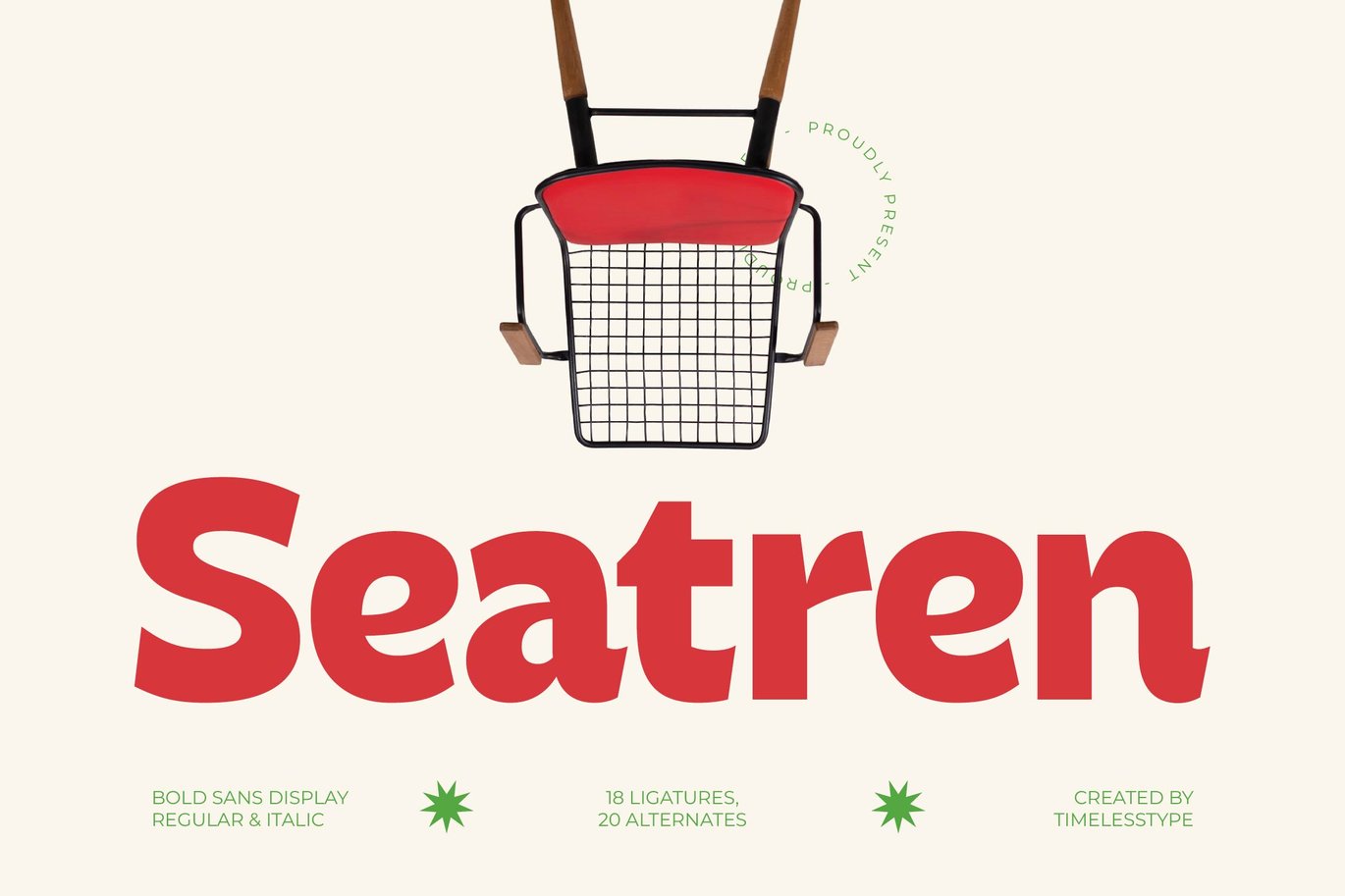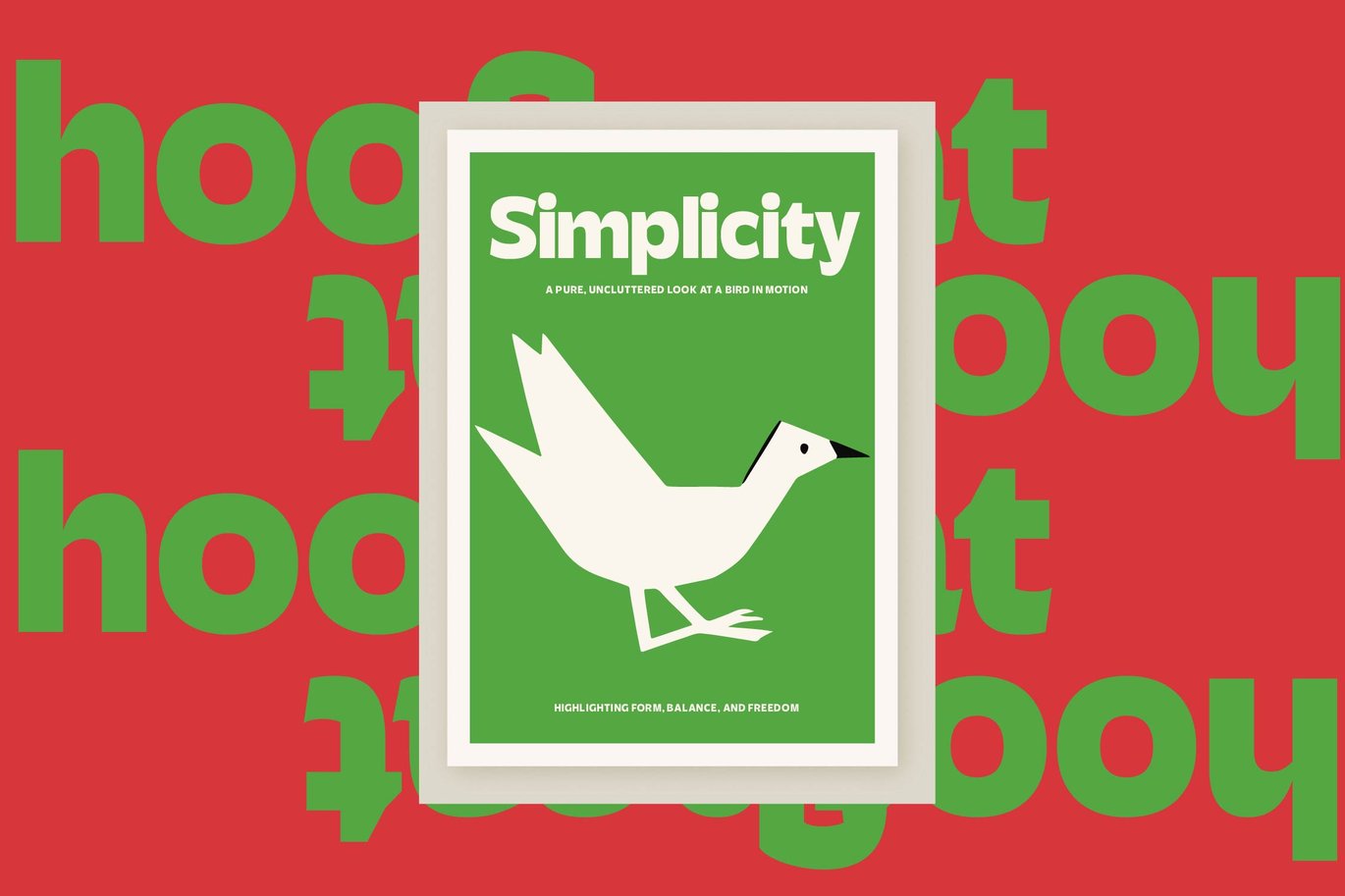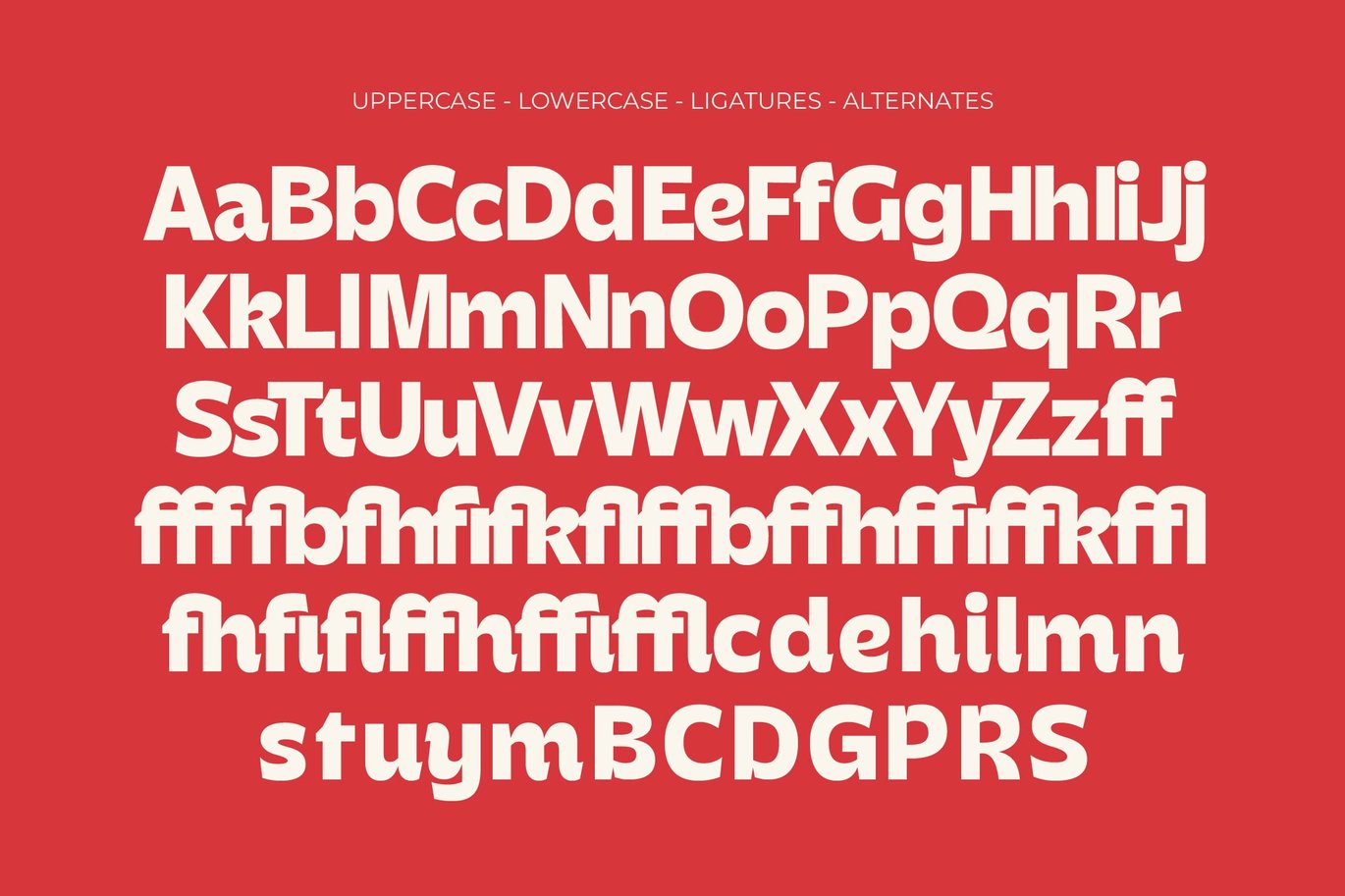
Seatren – Bold Sans Display Font
Seatren – Bold Sans Display Font is a versatile typeface ideal for various projects, including Sans-Serif, logos, branding, posters, blog headers, advertisements. The free version includes a full set of uppercase and lowercase letters, available in TTF, OTF, WOFF, WOFF2 format.